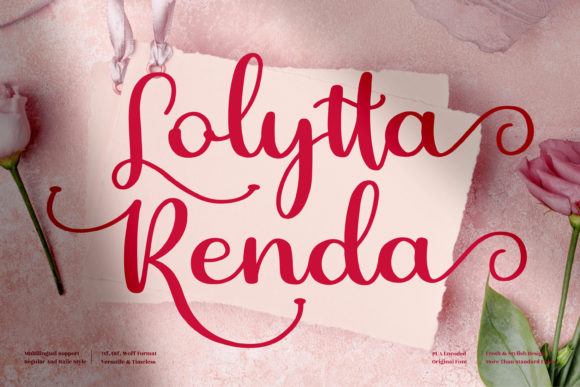
Prepare to be swept away by the enchanting Lolytta Renda font, a masterpiece crafted to evoke allure and grace in every design. This sophisticated script, adorned with an array of stylish alternates and ligatures, empowers you to craft captivating projects that radiate with an air of refinement.
Imagined by the creative minds at Perspectype, Lolytta Renda is the epitome of elegance, tailored to meet the discerning tastes of designers seeking to elevate their creations. Its PUA encoding unlocks a treasure trove of glyphs and swashes, granting you effortless access to a world of typographic artistry.
With Lolytta Renda at your fingertips, you'll find yourself immersed in a symphony of enchanting possibilities. Craft posters that leap off the page with their captivating charm, design invitations that exude an air of timeless sophistication, and create branding that commands attention with its undeniable allure.
Lolytta Renda is more than just a font; it's an invitation to unleash your creativity and paint the world with your unique vision. Let this exquisite script dance across your designs, leaving an unforgettable mark on the hearts and minds of your audience.